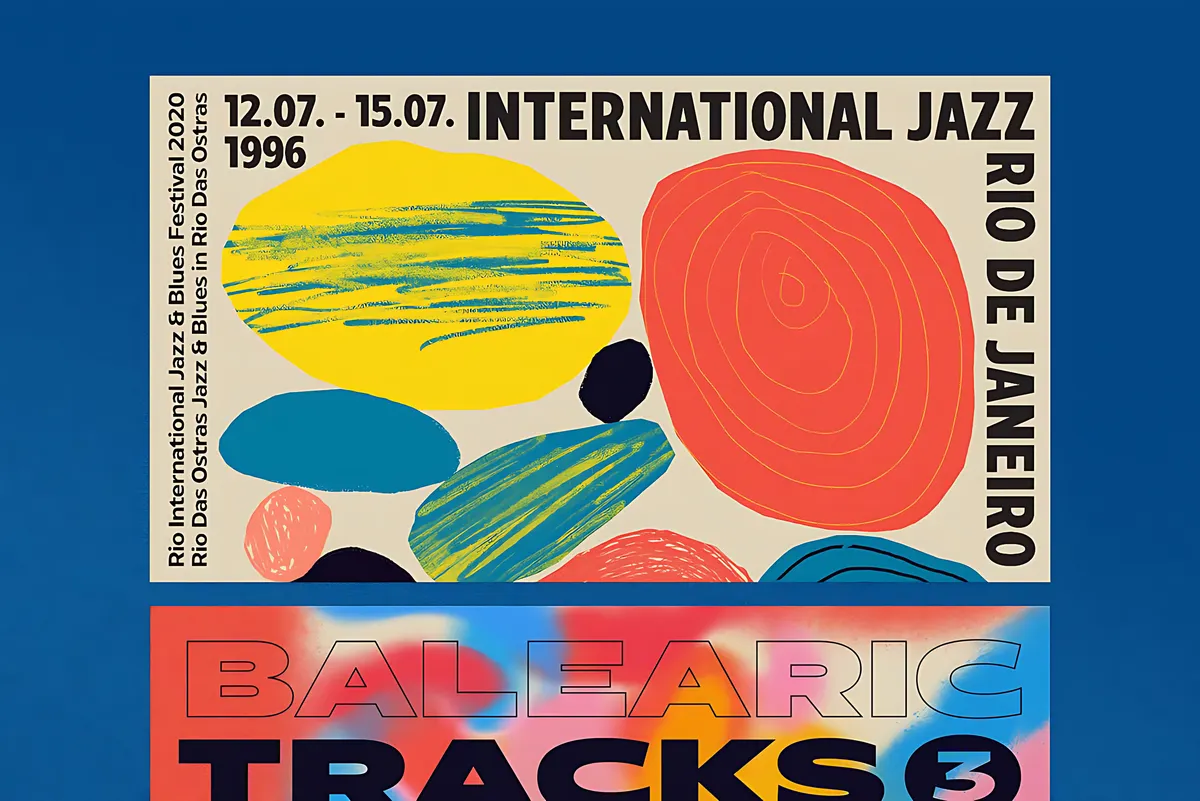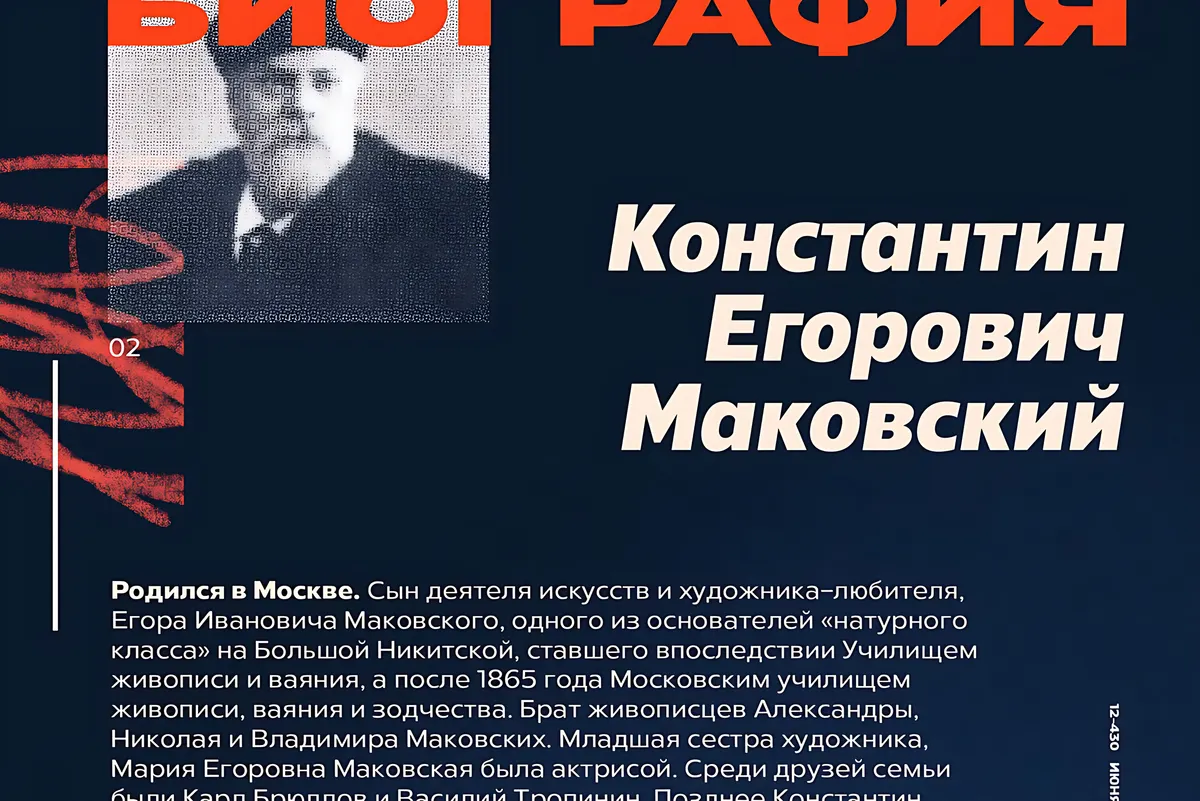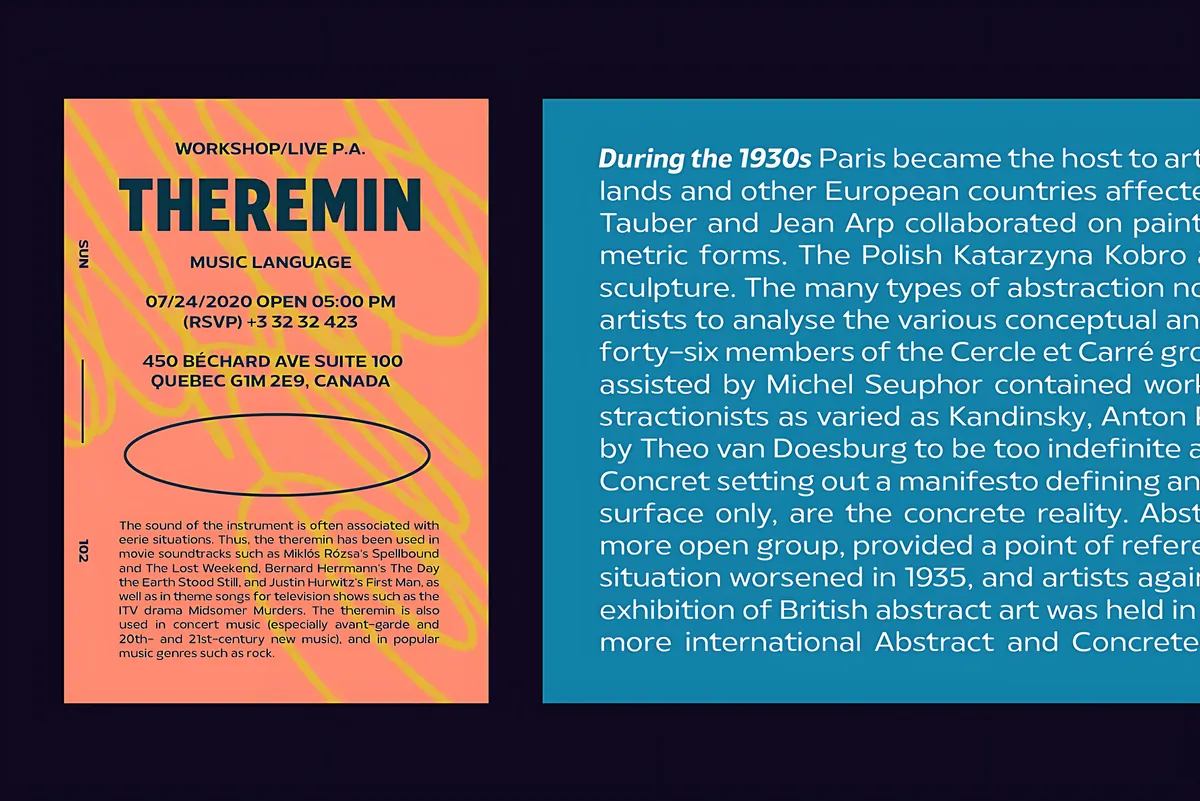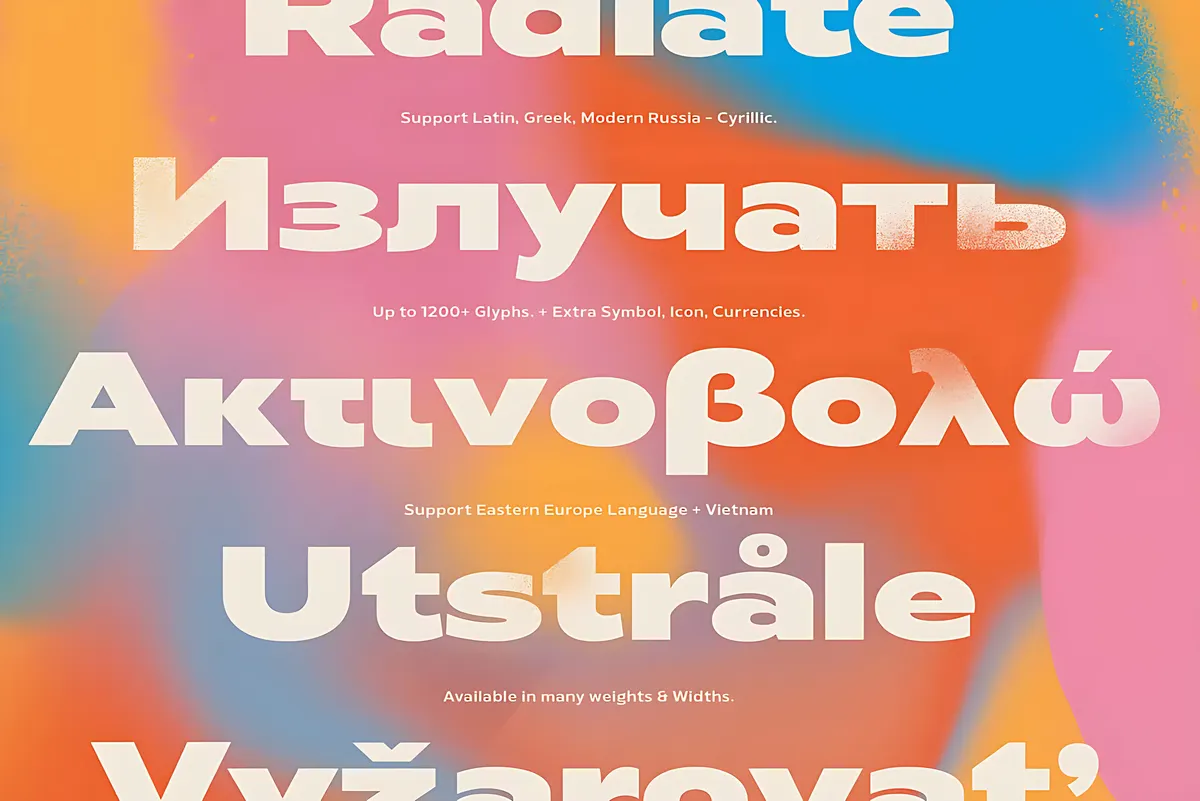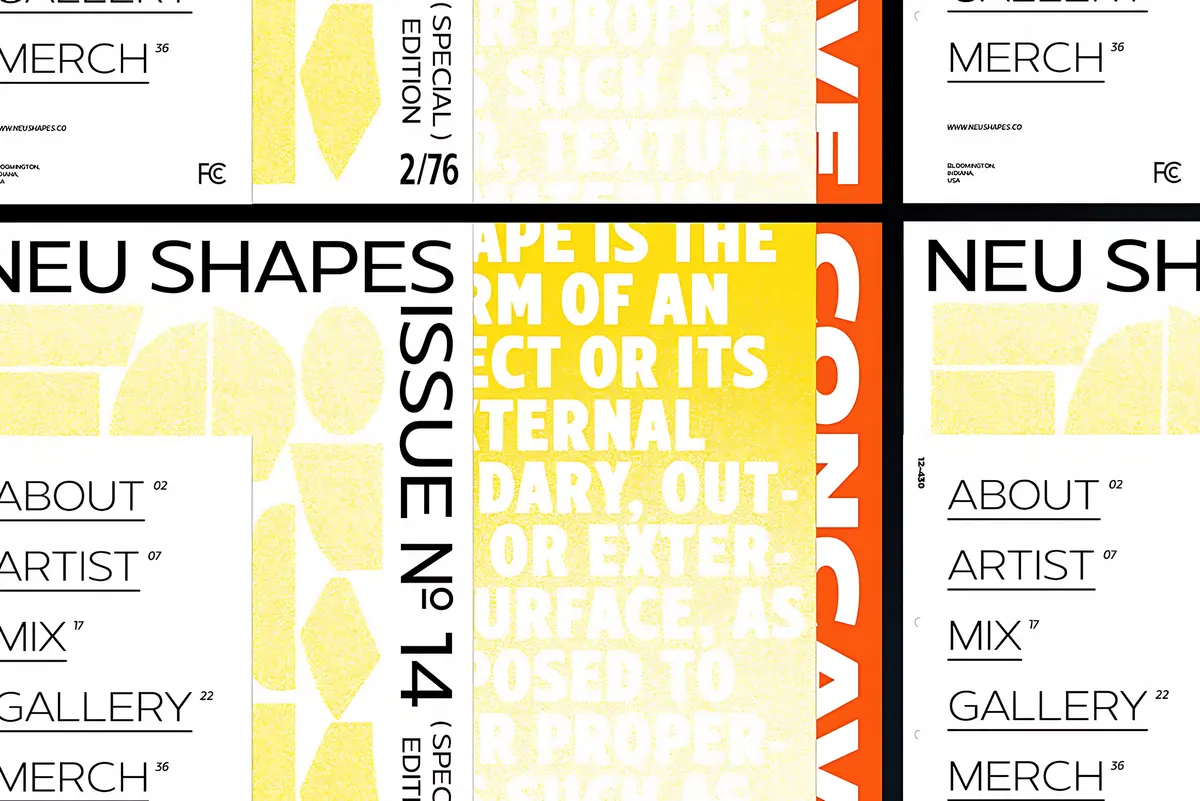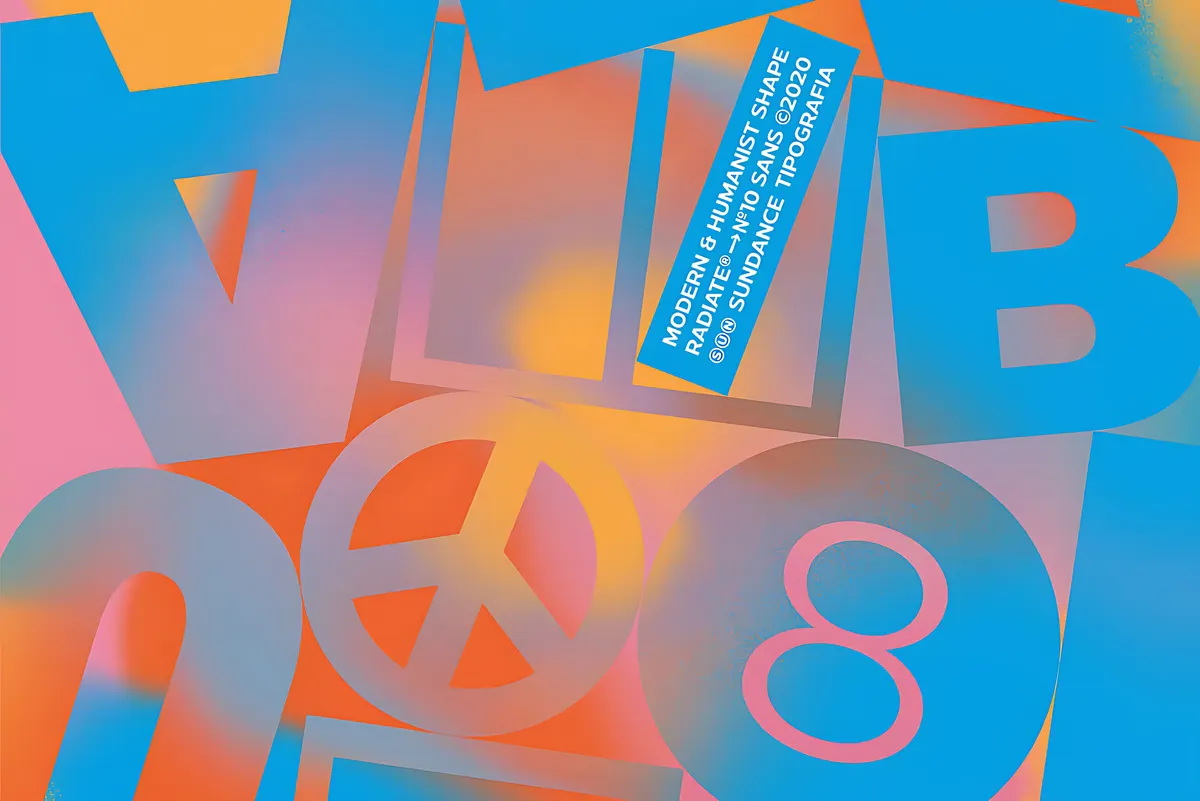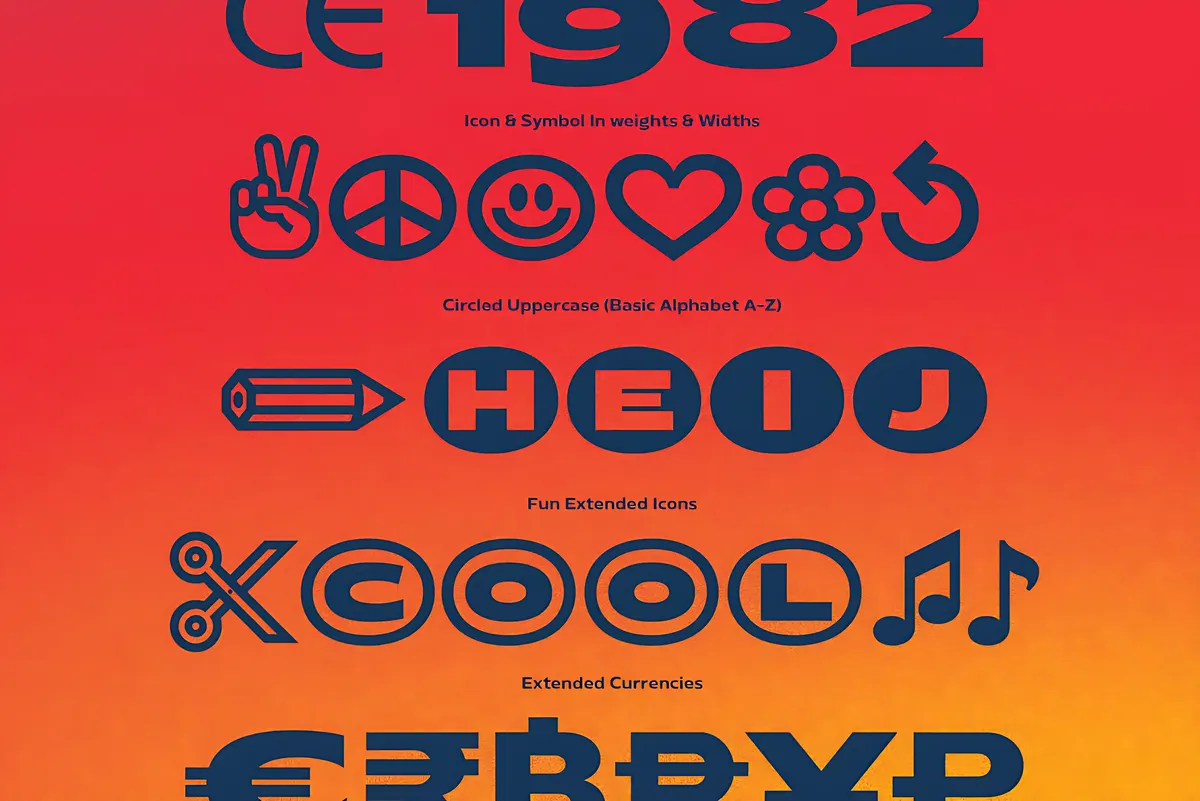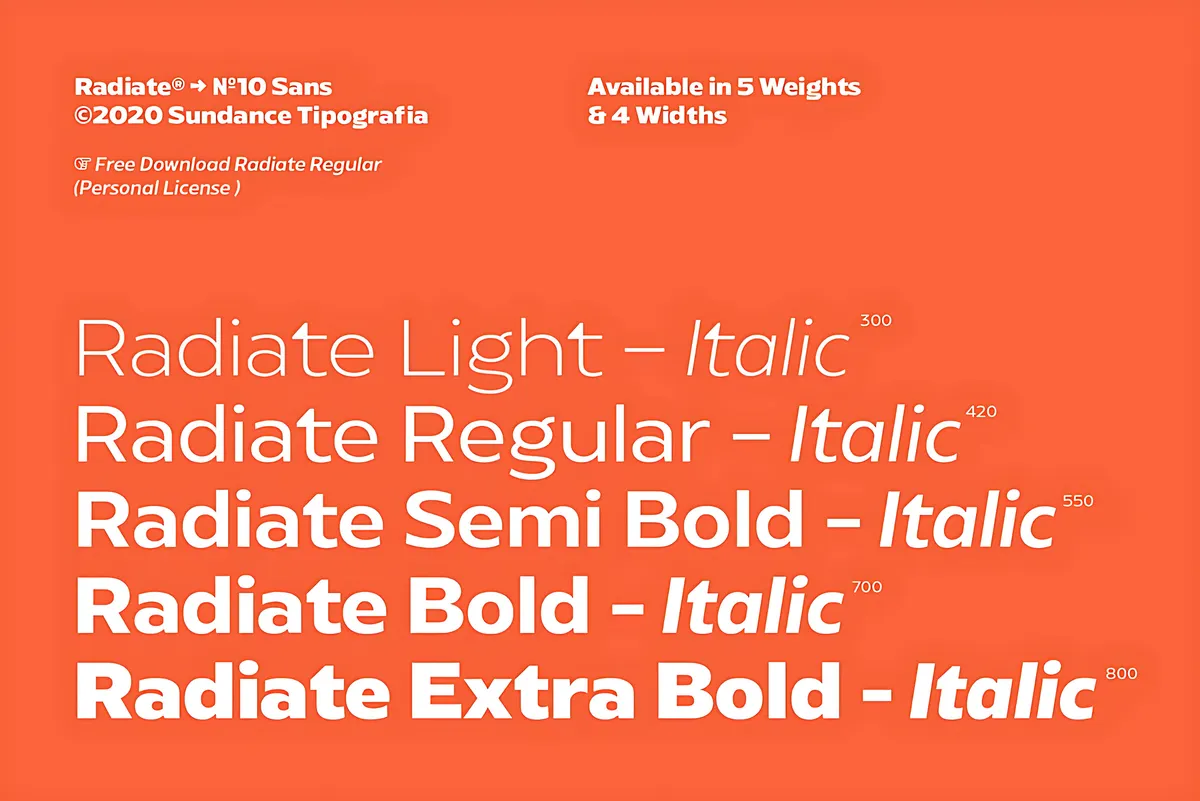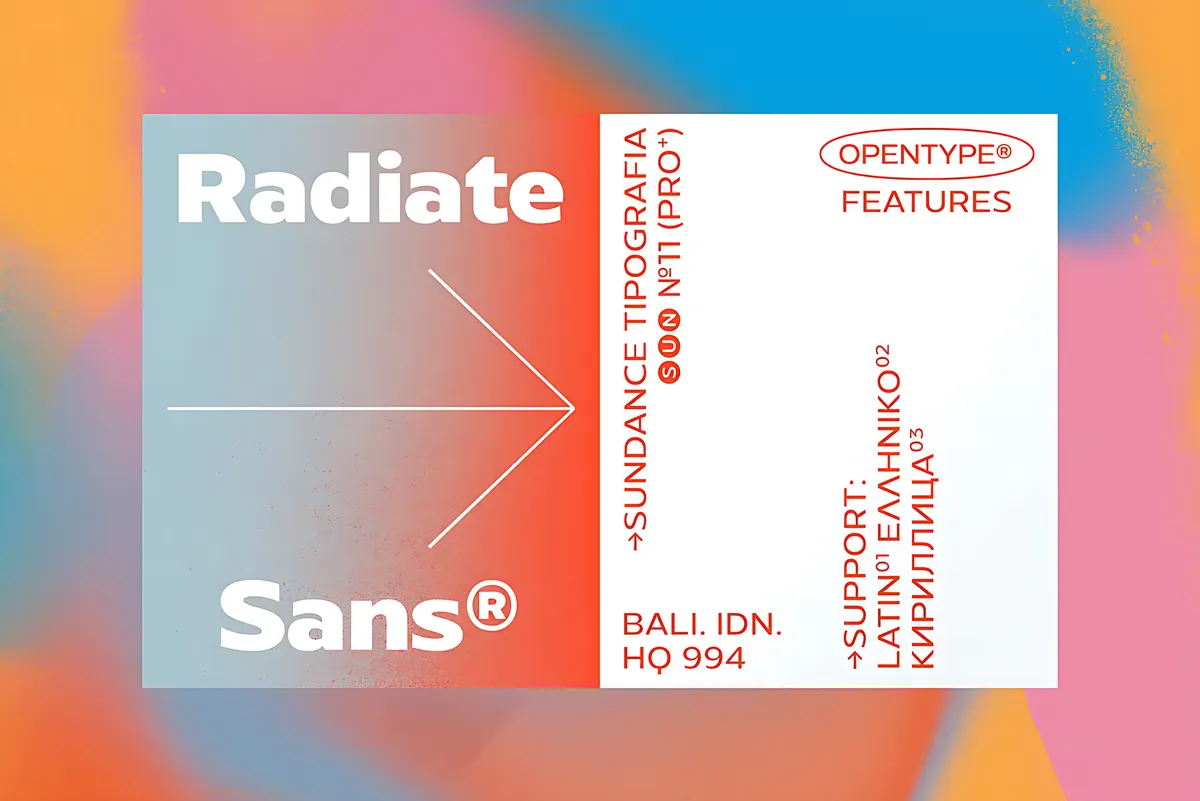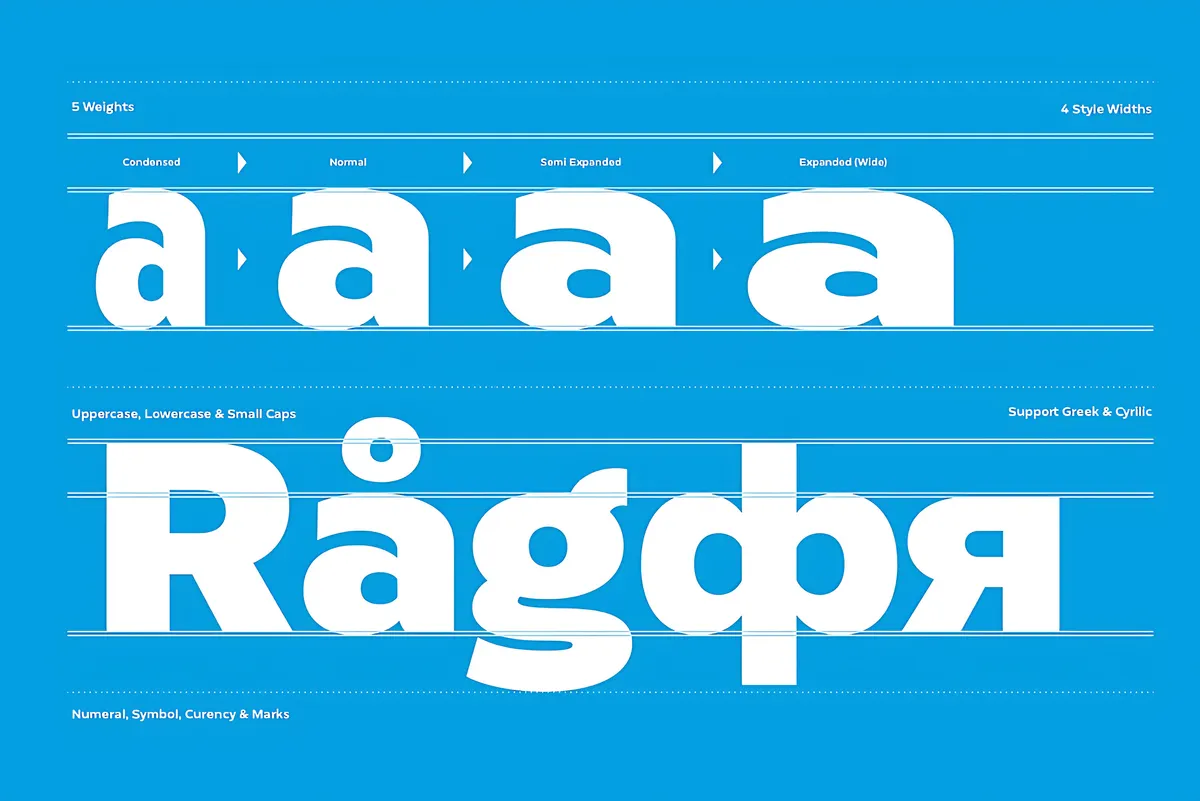
Radiate Sans Font Family
Studio Sun drew Radiate Sans and published it as a poster font with a second job: being readable at small sizes, in the register of timetables, price lists, and book blurbs. The skeleton is geometric, and the humanist half shows in the stroke modulation, where a stem widens and narrows along its length.
Five weights come with true italics, and the OpenType version adds four widths from Condensed to Expanded, which covers a stacked poster headline and a narrow column of listings out of one family. The character set includes 1,200+ glyphs across Latin Extended, Greek, and Cyrillic, with small caps, several figure sets, circled capitals, and a run of drawn icons.
Usage: poster design, editorial layouts, print information design, branding and identity systems, web, and UI.
- 5 weights: Light, Regular, Semi Bold, Bold, Extra Bold, each with a true italic;
- 4 widths in the OpenType version: Condensed, Normal, Semi Expanded, Expanded;
- uppercase, lowercase & small caps;
- oldstyle, proportional lining, superscript & subscript figures;
- circled capitals A–Z;
- icons & symbols drawn per weight and width;
- extended currency;
- 1,200+ glyphs;
- Latin Extended, Standard Greek & Standard Cyrillic.